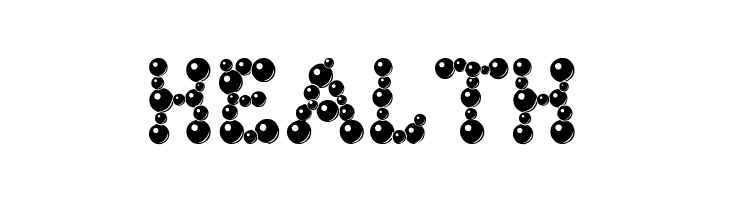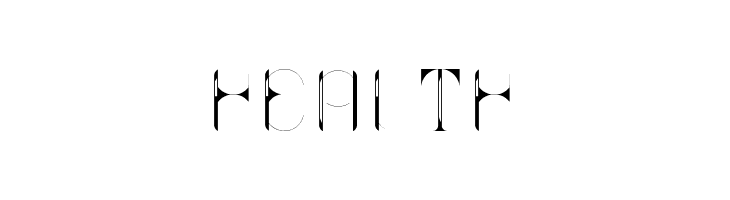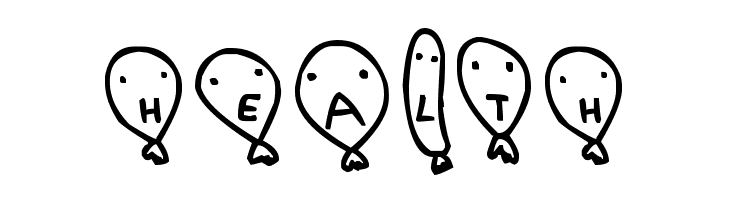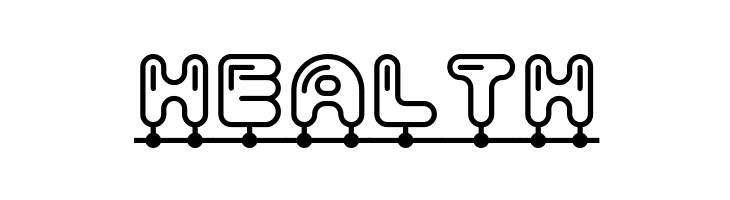
• BALL bold
• ballbearings
( Fonts by Mike Wolf )
A playful, ball-bearing inspired decorative font with bold, rounded characters.
• Ballegria
A delicate and flowing script font with elegant curves and a polished look.
• BalletEngraved
• Ballita Script
An elegant script font with intricate swirls and flowing cursive style.
• Ballo
• Balloon Friends
( Fonts by Darrell Flood )
A playful balloon-themed font with rounded, bubbly characters.
• Balloonatic
• Balloons
A playful, balloon-inspired decorative font with bold outlines.
• ballot